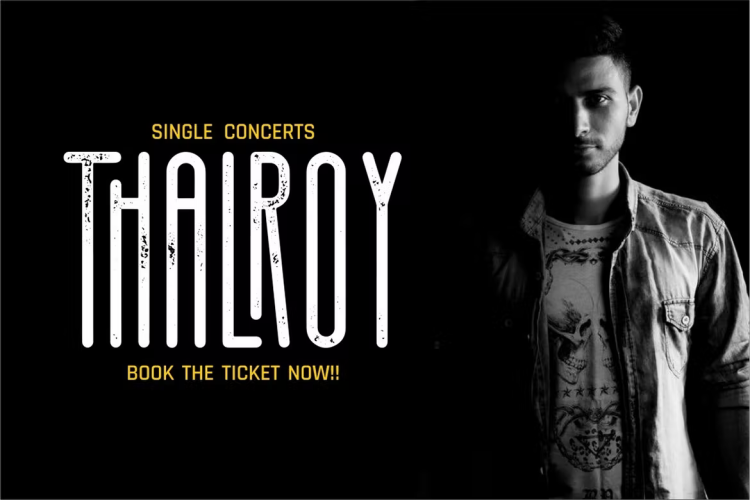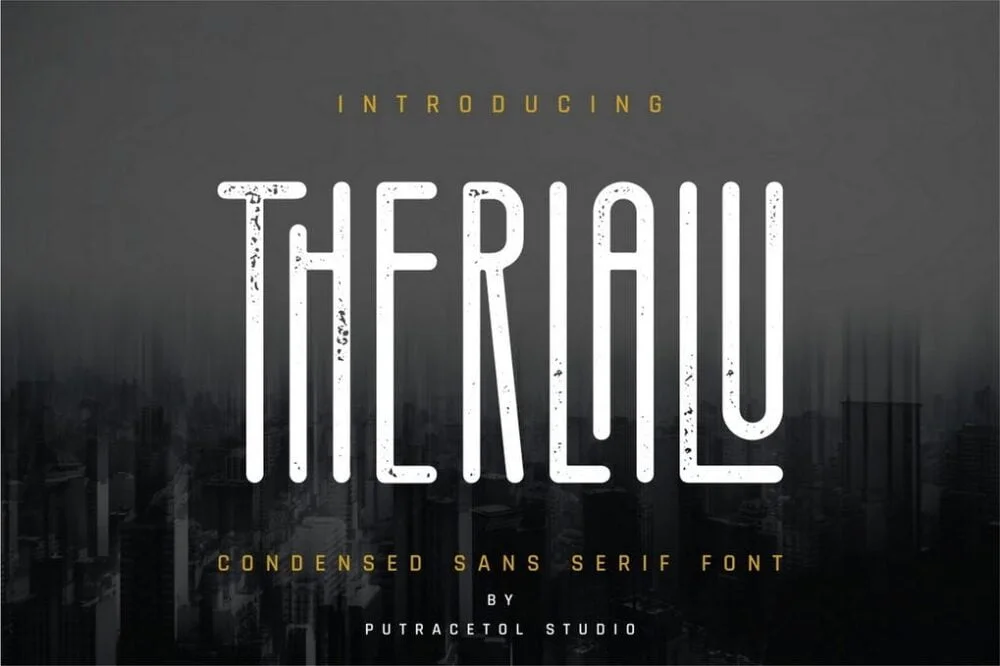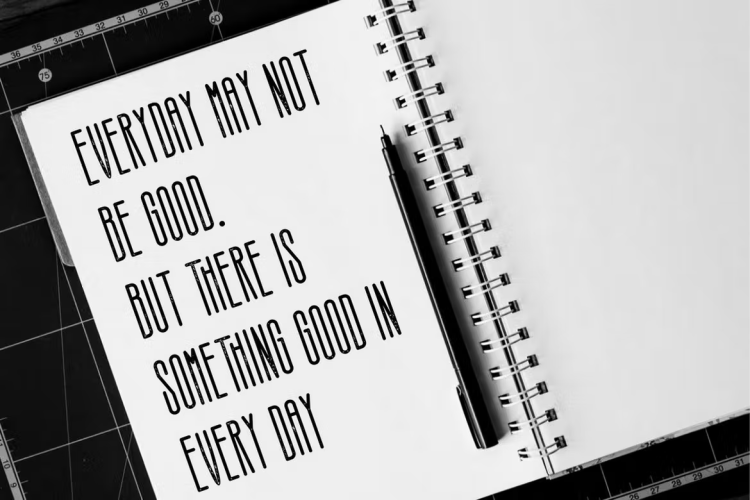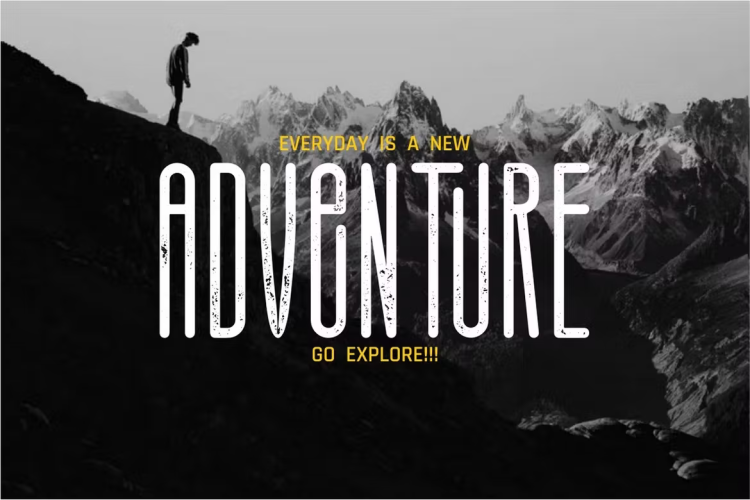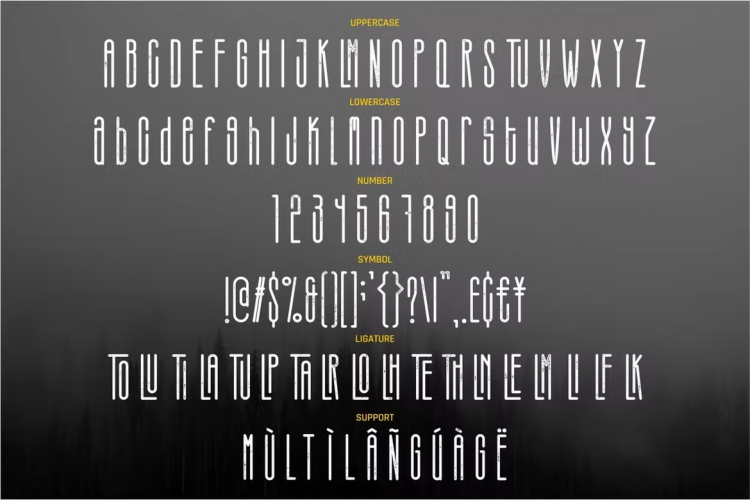
Therlalu Font
Therlalu Font is a modern, sans serif, Elegant condensed display font. It contains a full set of lower & uppercase letters, punctuation, numerals, and multilingual suppo…
Therlalu Font is a modern, sans serif, Elegant condensed display font. It contains a full set of lower & uppercase letters, punctuation, numerals, and multilingual support. Therlalu available in 2 style : Standard and Rough Version. Suitable for logos, T-shirts, handwritten quotes, product packaging, title header, poster, merchandise, social media, labels, branding & greeting cards.
Where Therlalu Font works best
Therlalu Font is built for size: event posters, hero headlines and billboard-style layouts.
High contrast display type like Therlalu Font reads instantly in thumbnails and motion graphics.
What is Therlalu Font good for?
Therlalu Font is a Display Fonts typeface tagged Condensed, Display, Display Fonts, Elegant. It works well for headlines, logos, posters, social media graphics and branding projects that need a distinctive display fonts look.